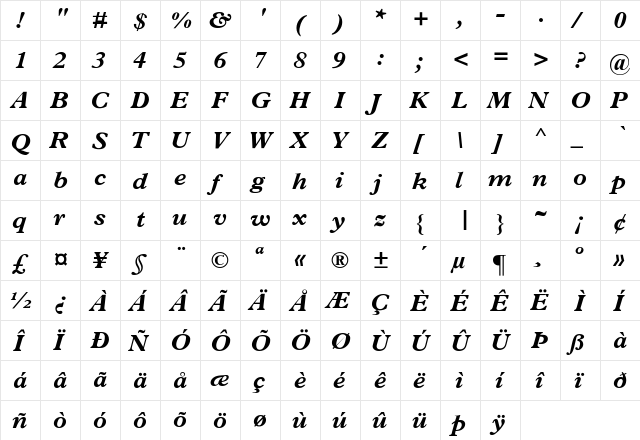
MPlantin-BoldItalic Regular
Design Context for MPlantin-BoldItalic Typeface
MPlantin-BoldItalic is a composed and adaptable typeface that performs quietly and consistently across a wide range of design contexts. Its italic angle brings a sense of urgency and motion to the letterforms. The heavy weight commands attention and anchors typographic hierarchies.
Pro Tip: Try MPlantin-BoldItalic for annotation and caption copy alongside an upright companion — the contrast in angle creates a dynamic but ordered typographic system.